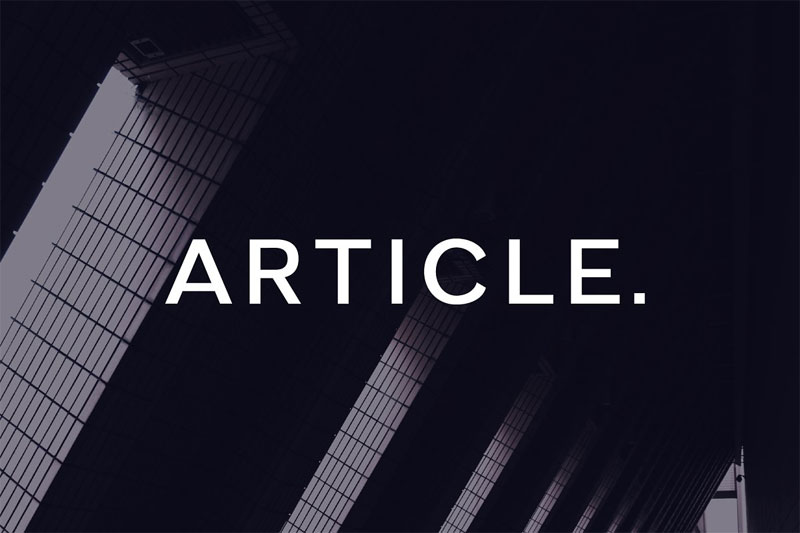
Simple Best Font For Architectural Plans With New Ideas, The same attribute makes it a popular choice for signage, logos, and business cards. Cibreo is a geometric sans serif typeface, made to be extremely clear and readable while keeping a modernist, straight look.
architectural Fonts MyFonts It looks like it has been handwritten.
Futura falls under the sans serif font type and was created in the 1920s by paul renner. Monolisk is a very sturdy and powerful font with the gothic typeface. City blueprint and hand are too extreme to be legible at half size. The same attribute makes it a popular choice for signage, logos, and business cards.
Even better is the fact that it can be used for both title and body text, and it also can be compatible with all sorts of serif and sans serif font types. Futura falls under the sans serif font type and was created in the 1920s by paul renner. It comes in various shapes, styles, and symbols and is free for personal use. This is another popular font type that you can use for your portfolio. 55+ Best Free and Premium Architectural Fonts 2020 Hyperpix.
Can anyone suggest a suitable font without me having to try all of them? It comes in various shapes, styles, and symbols and is free for personal use. Click to find the best 23 free fonts in the architecture style. Designed by jonathan pinhorn, karla is a grotesque sans serif in the tradition of helvetica and futura. Architectural font free download •.
Aug 10, 16 9:51 pm ·. With 141 characters and 80 glyphs, this font is a good choice for creative building blueprints. Click to find the best 23 free fonts in the architecture style. Widely used for publicity, due to the idea of credibility transmitted by its lines, in architecture, this font should be used in business cards and logos. 20 Amazing Free Architectural Fonts CreativeDive.
As we mentioned earlier, helvetica is one of the most popular architectural fonts. Here are 15 trending architectural fonts that architects need to install: Ching ($25.99) urban sketch (free) The story behind the graphite fonts begins in 1988 when david siegal collaboration with architect francis ching, he. 15 Best Architectural Fonts Design Inspiration.
It comes in 5 different weights plus stylistic alternate glyphs to. Click to find the best 23 free fonts in the architecture style. The story behind the graphite fonts begins in 1988 when david siegal collaboration with architect francis ching, he. Also i'd appreciate any help on where to download these fonts. best architectural fonts, draftsman font, blueprint font, fonts for.
Cibreo is a geometric sans serif typeface, made to be extremely clear and readable while keeping a modernist, straight look. I used to have it somewhere, but i have a couple zip disks of fonts to go through from when i used to work as a graphic artist and printing press operator. Can anyone suggest a suitable font without me having to try all of them? Akzidenz grotesk, replica sans, aperçu, din and so on. 55+ Best Free and Premium Architectural Fonts 2020 Hyperpix.
Even better is the fact that it can be used for both title and body text, and it also can be compatible with all sorts of serif and sans serif font types. Arial, univers and calibri are terrible in my opinion. Futura falls under the sans serif font type and was created in the 1920s by paul renner. Popular title and text font pairings include: sketch fonts for architectural lettering.
Can anyone suggest a suitable font without me having to try all of them? This type of calligraphy is useful to draw attention to advertising design purposes and. There's so many decent typefaces to use for clarity in presentation. Cibreo is a geometric sans serif typeface, made to be extremely clear and readable while keeping a modernist, straight look. Architectural Free Font Free font, Architecture, Condensed font.
This font was developed by studio buchanan after being inspired by eastmodern and brutalist architecture. Futura falls under the sans serif font type and was created in the 1920s by paul renner. Here are 15 trending architectural fonts that architects need to install: Monolisk is a very sturdy and powerful font with the gothic typeface. Very popular images Font Name Architect Bold.
This type of calligraphy is useful to draw attention to advertising design purposes and. Taking its name from a traditional italian recipe, it aims to be the added ingredient to make unique. Marsek is a solid and sophisticated display font, created to emphasis big headline,. Making it a very popular and highly used typeface in the works of architecture and design and as a competitor for futura. 5 Beautiful Fonts Architects Can’t Do Without Beautiful fonts.
Arial, Univers And Calibri Are Terrible In My Opinion.
Now, everyone can write like an architect! Popular title and text font pairings include: It comes in various shapes, styles, and symbols and is free for personal use. Popular architectural fonts to consider 1.